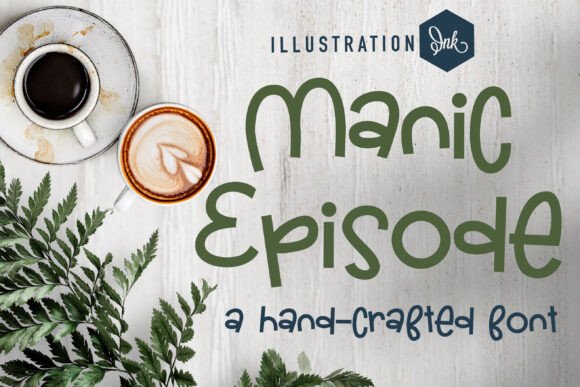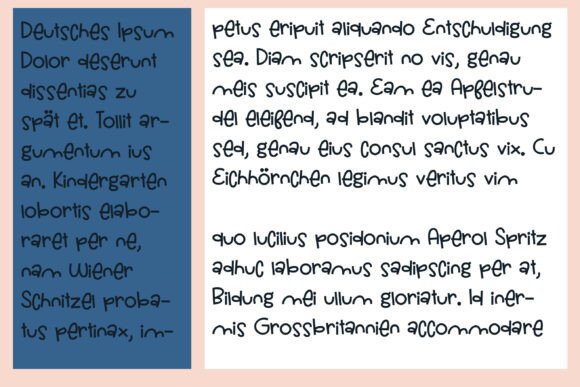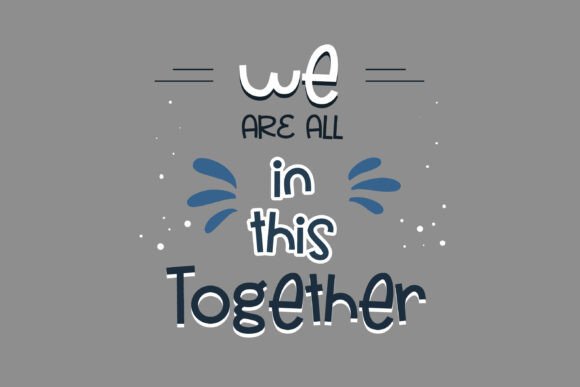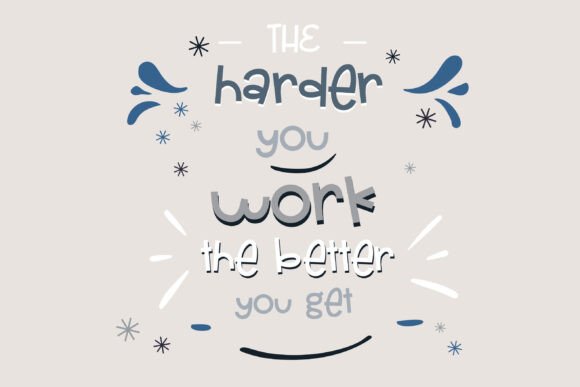
Manic Episode Font
About the Manic Episode Font
Presenting Manic Episode Font, a unique and stylish typeface that will make your work stand out. This hand-crafted font is a youthful and fun font with a bouncy baseline.
Manic Episode Font’s bouncy baseline and hand-crafted feel make it ideal for headlines, short text blocks on posters or packaging, and playful branding elements where a youthful energy is desired. It works exceptionally well for projects targeting a younger demographic or those needing a vibrant, informal feel. Avoid using it for body text or long paragraphs; its playful nature reduces readability in extended use.
Consider pairing Manic Episode with a clean sans-serif like Open Sans for contrast and readability in applications needing both headline and body text. For a more sophisticated feel, a classic serif like Garamond could provide a grounding elegance. Alternatively, a geometric sans-serif like Futura would accentuate Manic Episode’s energetic character in a modern context.
The font’s overall personality is undeniably bold and playful, yet retains a handmade warmth. It’s best suited for brands and projects that want to convey excitement, creativity, and a youthful spirit.
Manic Episode Font Usage Examples
Manic Episode Font Example